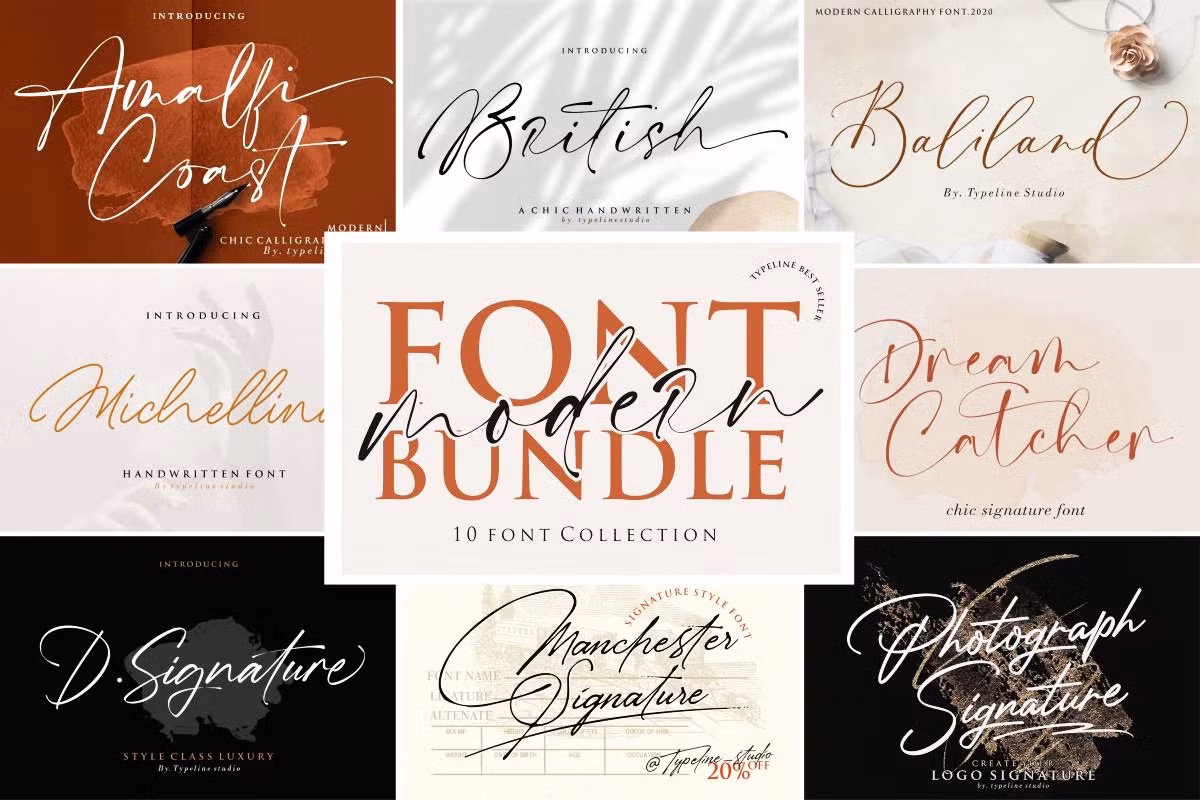
The Modern Handwritten Font Bundle Free Download
The Modern Handwritten Font Bundle Free Download is a curated collection of stylish, contemporary script fonts designed to add a personal and elegant touch to any creative project. Please note: you must purchase this font for commercial use, but you can test it through a free download. This bundle features a variety of modern handwritten styles—ranging from chic and minimalist to flowing and expressive—making it ideal for logos, social media, wedding invitations, product packaging, and branding.
Whether you're designing for a fashion brand or a heartfelt quote graphic, The Modern Handwritten Font Bundle Free Download gives you the perfect tools to create text that feels authentic and beautiful. Fully compatible with Adobe Illustrator, Photoshop, Canva, and other design platforms, these fonts are easy to mix and match for endless creative possibilities. Download now for personal use and elevate your typography with a fresh, hand-drawn aesthetic.